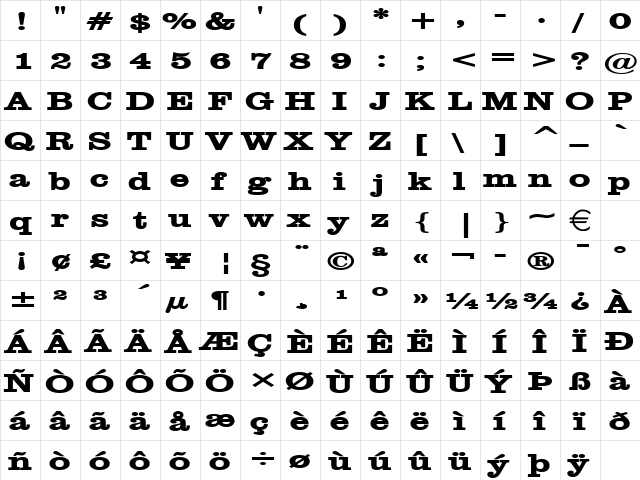
ClareExtended Bold
Design Context for ClareExtended Typeface
ClareExtended offers clean, dependable letterforms without strong stylistic allegiance, making it a practical choice for designers who need flexibility. The heavy weight commands attention and anchors typographic hierarchies.